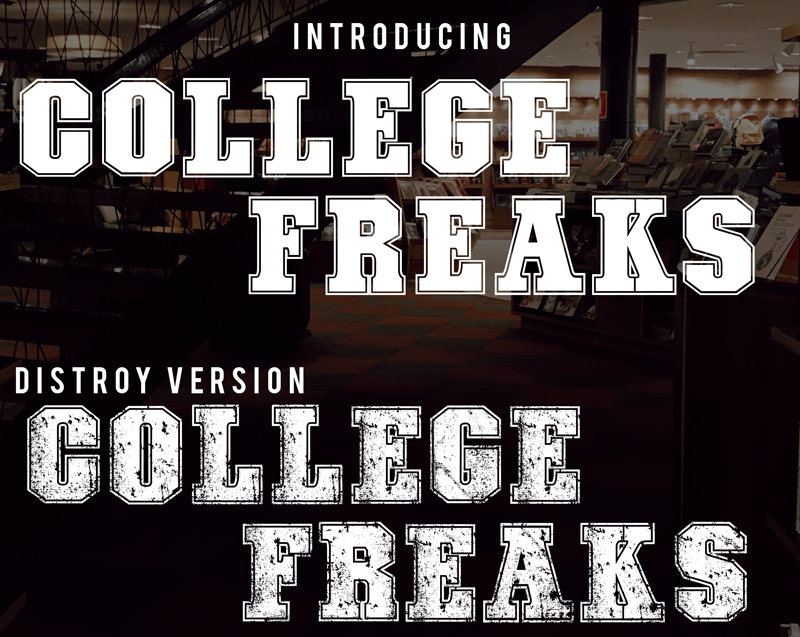
Preview and download College Freaks Font. Created by Knackpack Studio in Fancy Old School styles with Demo license.
Introducing - COLLEGE FREAKS - BOLD and Athletic masterpiece with special flavored textures. - Available Clean and Destroy version Demo Version. FREE for Personal use. Directly purchase FULL / License version at http://www.knackpack.studio Thanks and E N J O Y |